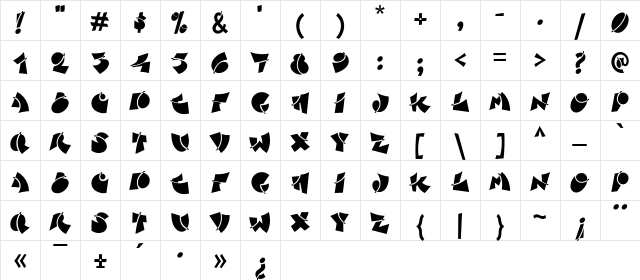
Extra Step Regular Free Font
Extra Step Regular
Design Context for Extra Step
Extra Step is a composed and adaptable typeface that performs quietly and consistently across a wide range of design contexts.
Pro Tip: Use Extra Step in both headline and body roles to test its range before committing to a single application.